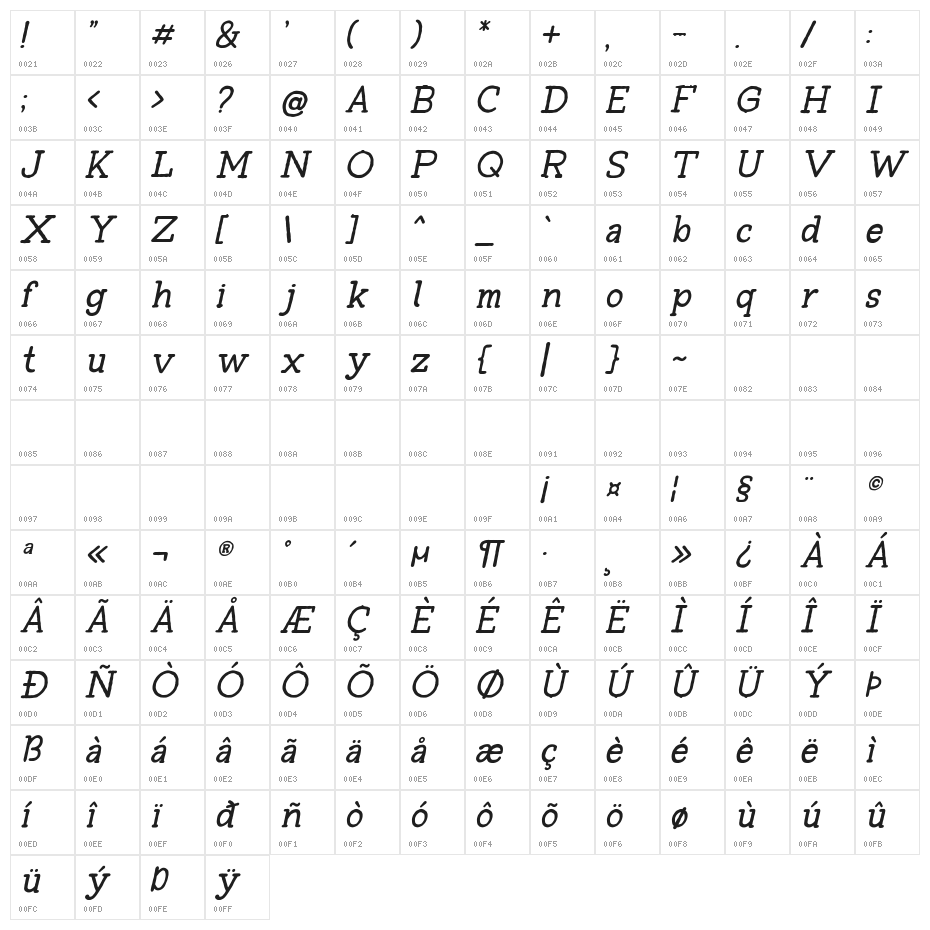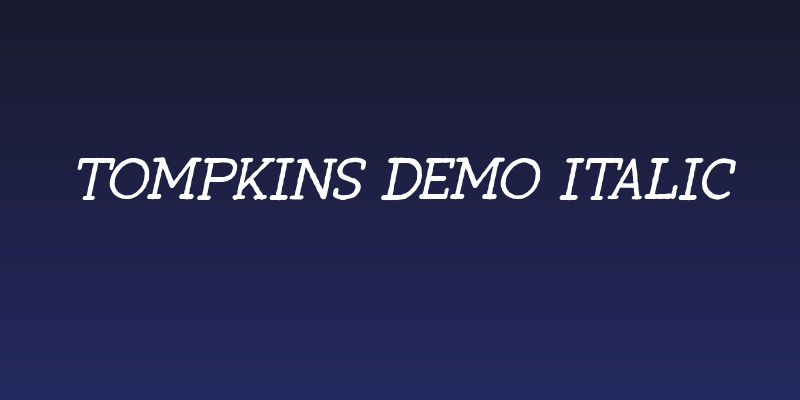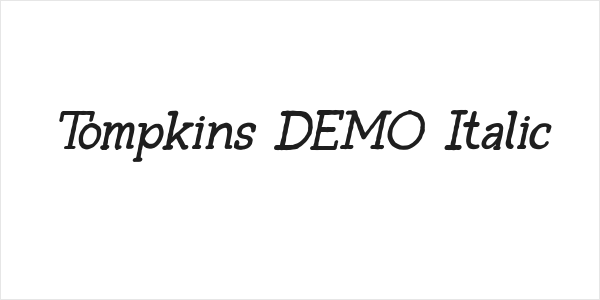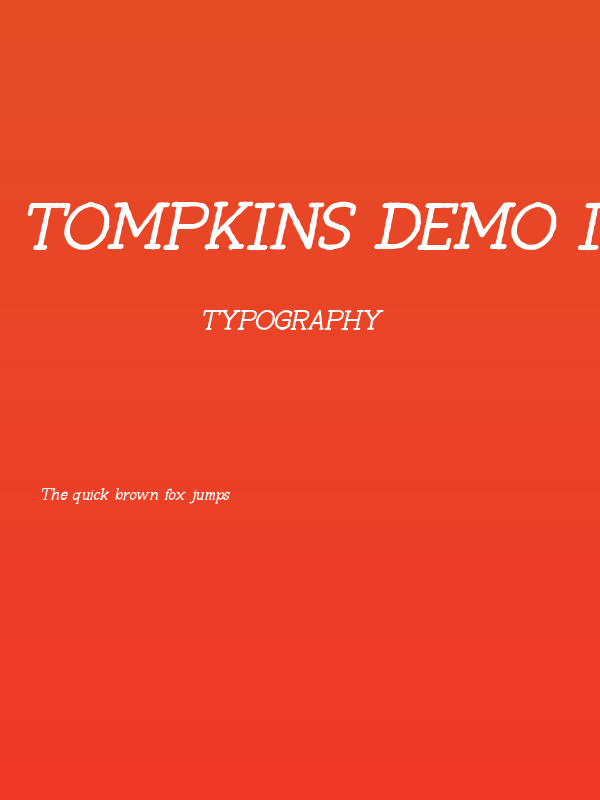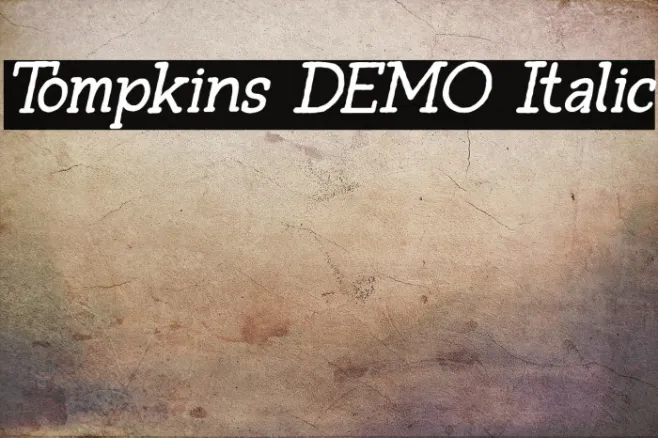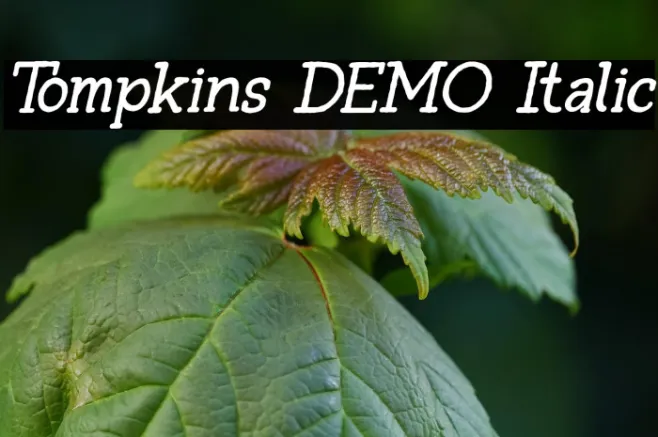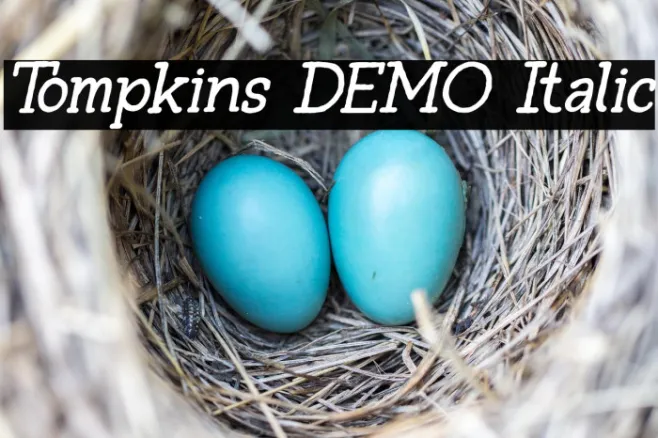
Tompkins DEMO Italic Font
Tompkins DEMO Italic Description
This font features a classic italic style with a slight slant, giving it a dynamic and elegant appearance. The characters are well-defined with moderate stroke contrast, providing a balanced and readable text. The uppercase letters are bold and prominent, while the lowercase letters maintain a smooth flow, enhancing the overall aesthetic. The numerals and special characters are consistent with the font's style, ensuring uniformity across different uses. Its design is suitable for conveying a sense of tradition and sophistication.
| Proposed Projects | Ideal for formal invitations, elegant branding, book covers, and editorial design. |